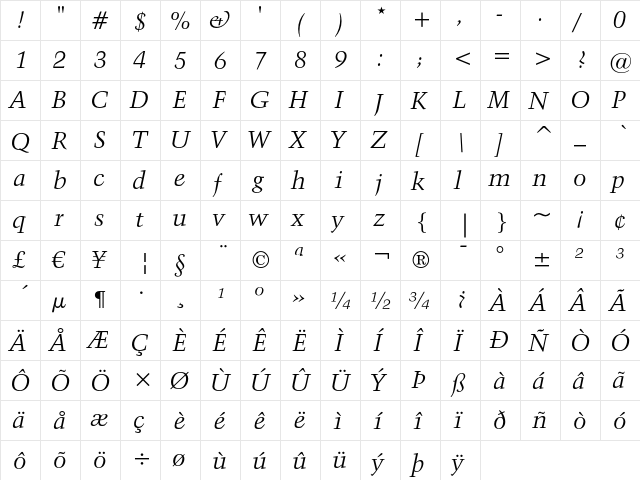
Kuenstler 480 Italic
Design Context for Kuenstler 480 Typeface
Kuenstler 480 takes a measured approach to typography — its balanced proportions and neutral character make it a reliable workhorse for both digital and print work. The slanted form adds forward momentum and visual energy.
Pro Tip: Use Kuenstler 480 for emphasis, pull quotes, and subheadings where its slanted energy can add rhythm to the layout.